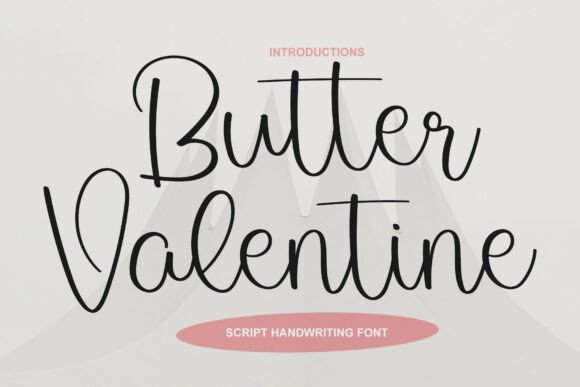
The Sweetness of Butter Valentine Font: A Designer’s Delight
I still remember the time I was working on a romantic branding project for a client, and I was struggling to find the perfect font to capture the essence of their love story. The client wanted something delicate, airy, and elegant, but not too over-the-top. After hours of scouring through font libraries, I stumbled upon Butter Valentine Font, and it was love at first sight! 💕
In this article, I’ll share my experience with Butter Valentine Font, its features, and how to make the most of it in your designs. Whether you’re a designer, crafter, or creative hobbyist, this font is sure to become a favorite in your collection.
- ✨ Delicate and airy script font with a natural, upright posture
- ✅ Fine, monolinear strokes that mimic hand-penned typography
- ✅ Expansive character spacing for improved readability
- ✅ Tall, looping ascenders that add a touch of elegance
- ✅ Rhythmic visual flow that makes it a joy to read
While Butter Valentine Font is an excellent choice for many projects, there are a few things to keep in mind:
- ⚠️ Limited character set: While the font has a wide range of characters, it may not have every special character or glyph you need.
- 🤔 May not be suitable for very large or very small text sizes: The font’s delicate nature may make it difficult to read at very large or very small text sizes.
The Backstory of Butter Valentine Font
Butter Valentine Font was designed with the intention of capturing the essence of contemporary, hand-penned typography. The designer aimed to create a font that would evoke a sense of romance, elegance, and sophistication, while still feeling approachable and natural.
The design process involved a lot of experimentation with different letterforms, ink flows, and paper textures. The result is a font that’s both beautiful and functional, making it perfect for a wide range of design projects.
A: Butter Valentine Font is perfect for romantic branding, boutique gift packaging, sentimental greeting cards, and professional signature-style watermarks.
Q: Is Butter Valentine Font suitable for body text?
A: While Butter Valentine Font is beautiful, it’s best suited for display text or short paragraphs. Its delicate nature may make it difficult to read in large blocks of text.